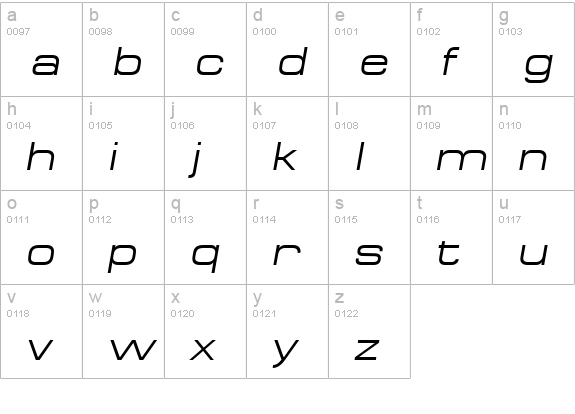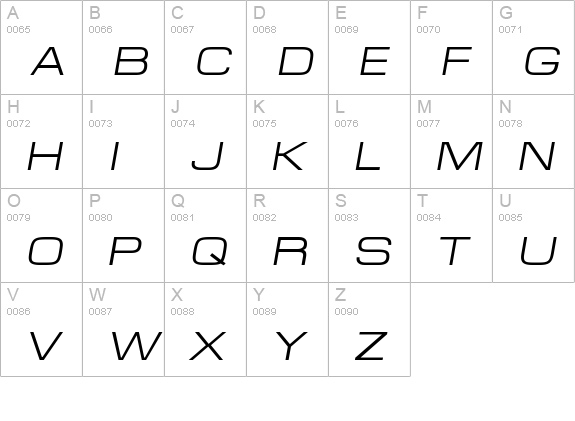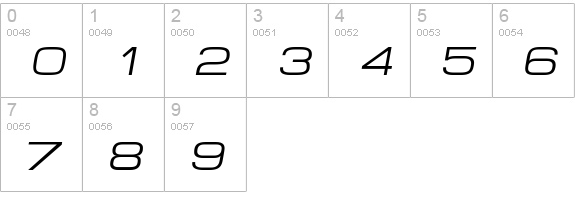
Minima Expanded SSi Expanded Italic is a distinctive, extended-width, italic variant in the Minima typeface family \xE2\x80\x94 well suited to design and typography projects.
Minima Expanded SSi Expanded Italic font is a sleek and modern typeface that adds a touch of sophistication to any design project. With its subtle curves and elegant lines, this font is perfect for creating a clean and contemporary look. The italic variation of Minima Expanded SSi Expanded adds a sense of style and flair to your text, making it stand out from the crowd. Best of all, Minima Expanded SSi Expanded Italic font is available for free download at FontsMarket.com. Whether you're working on a creative project, designing a website, or simply looking to enhance your written content, this font is a versatile and stylish choice that won't cost you a thing. So why wait? Download Minima Expanded SSi Expanded Italic font today and elevate your designs with its modern and sophisticated appeal.